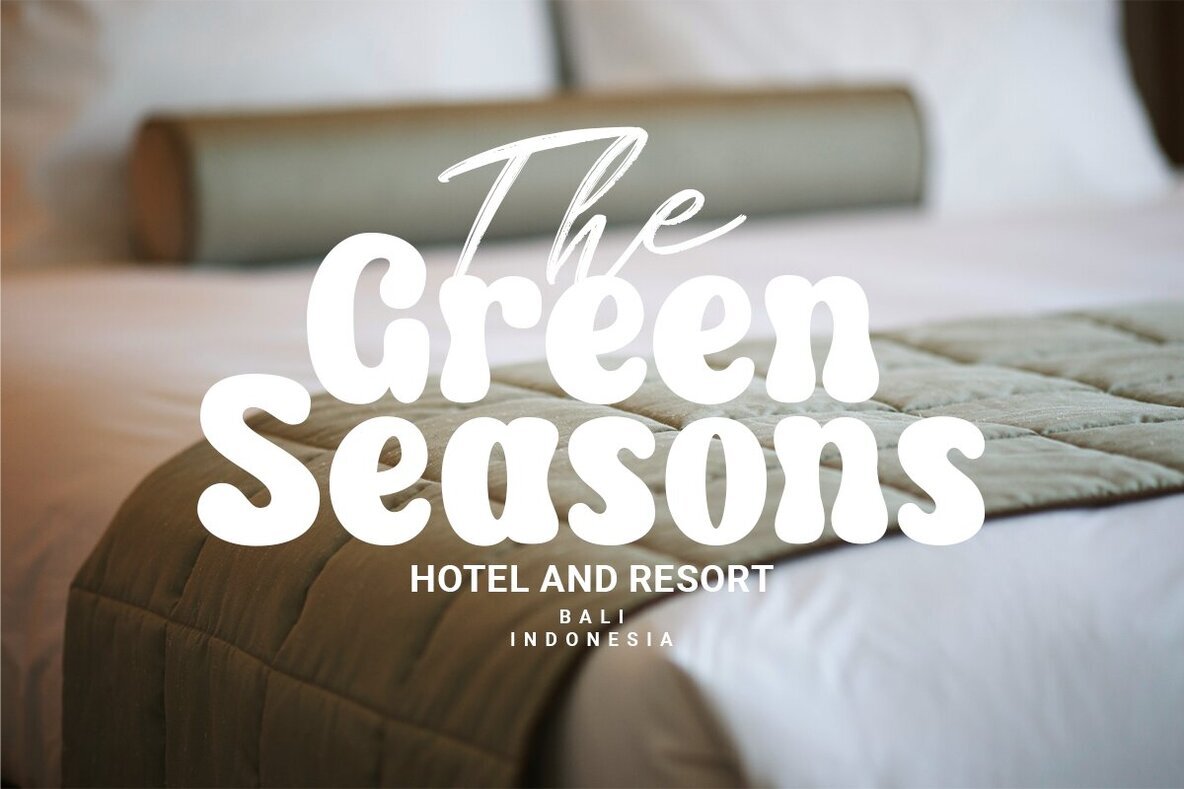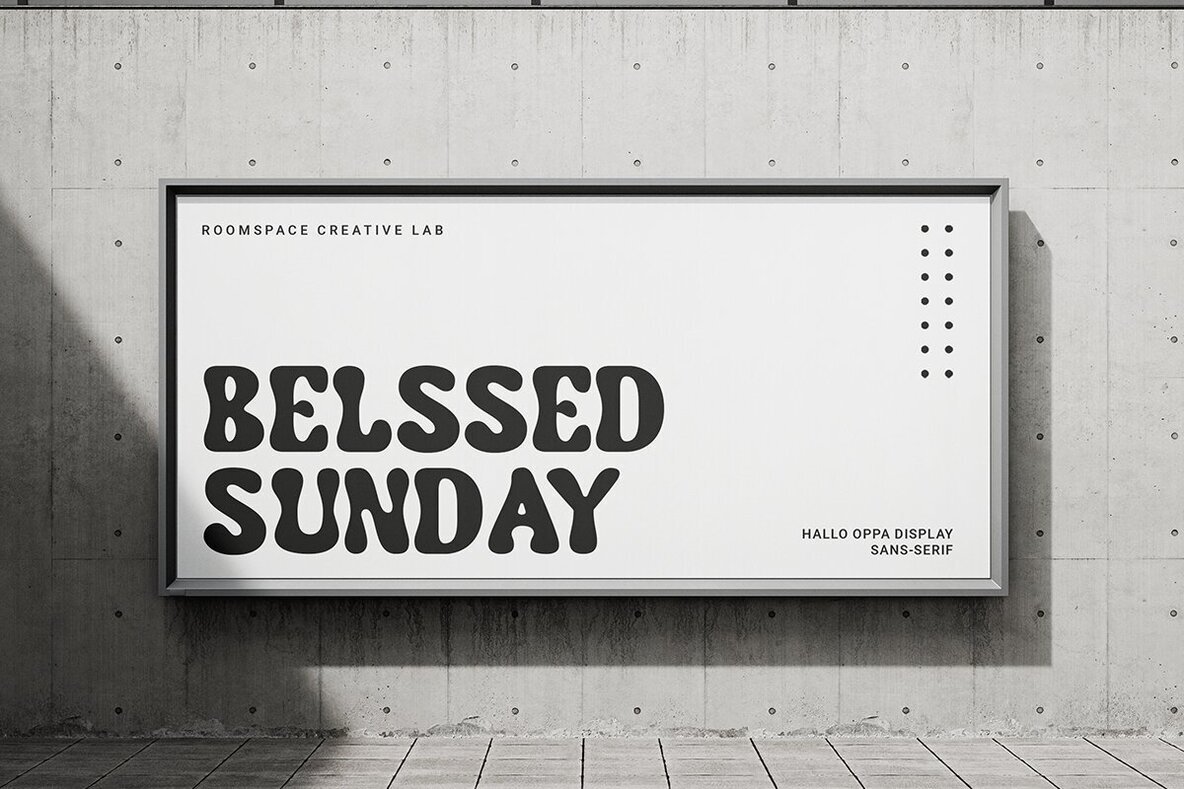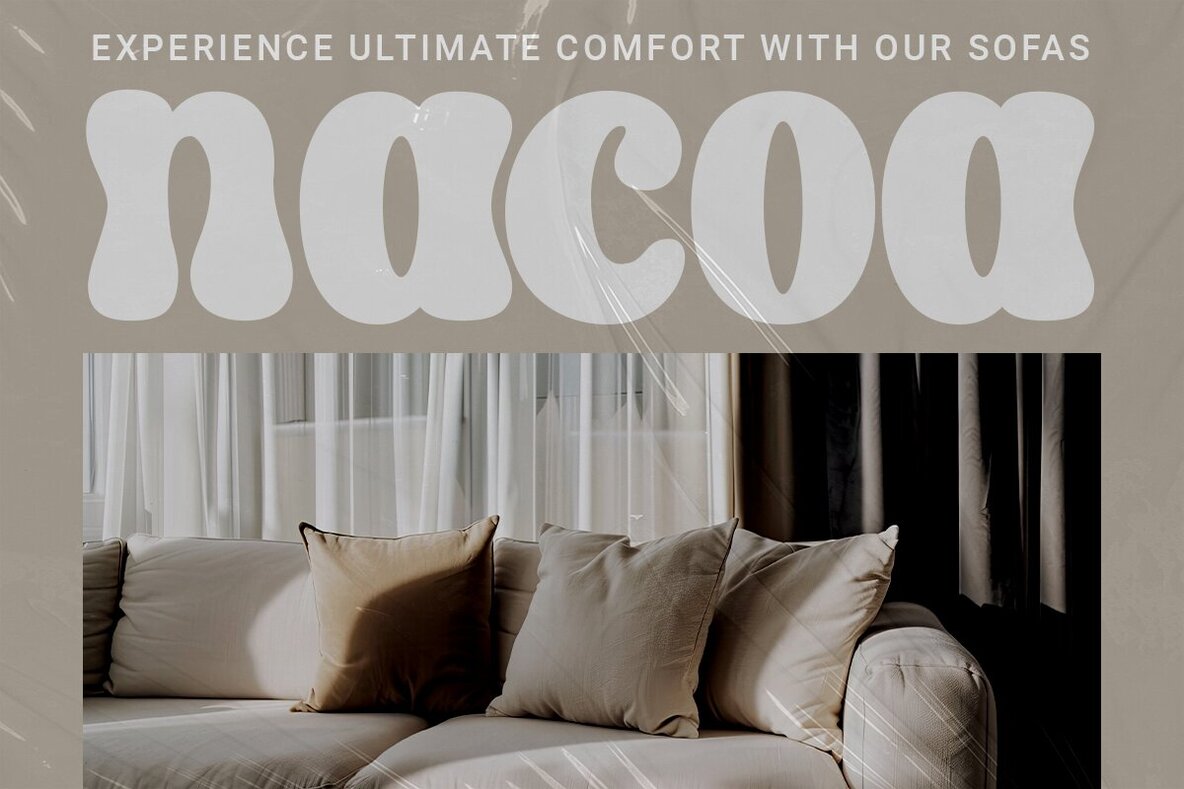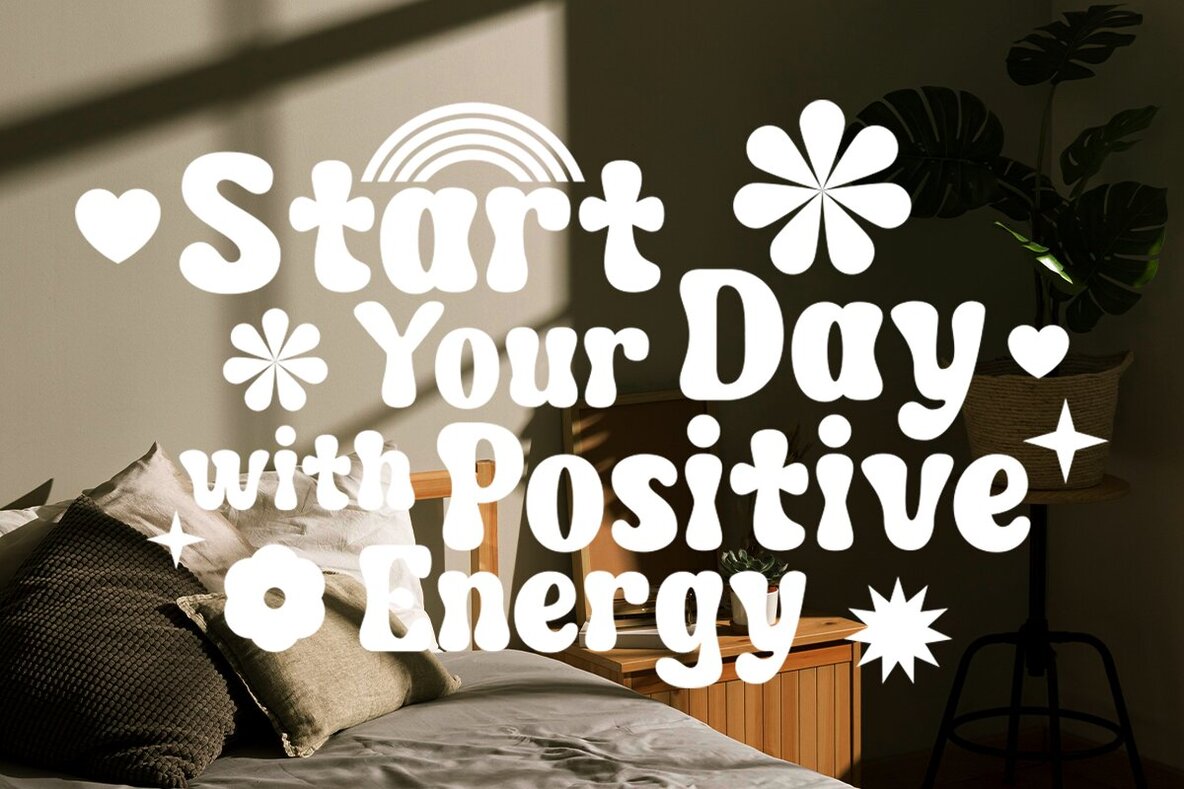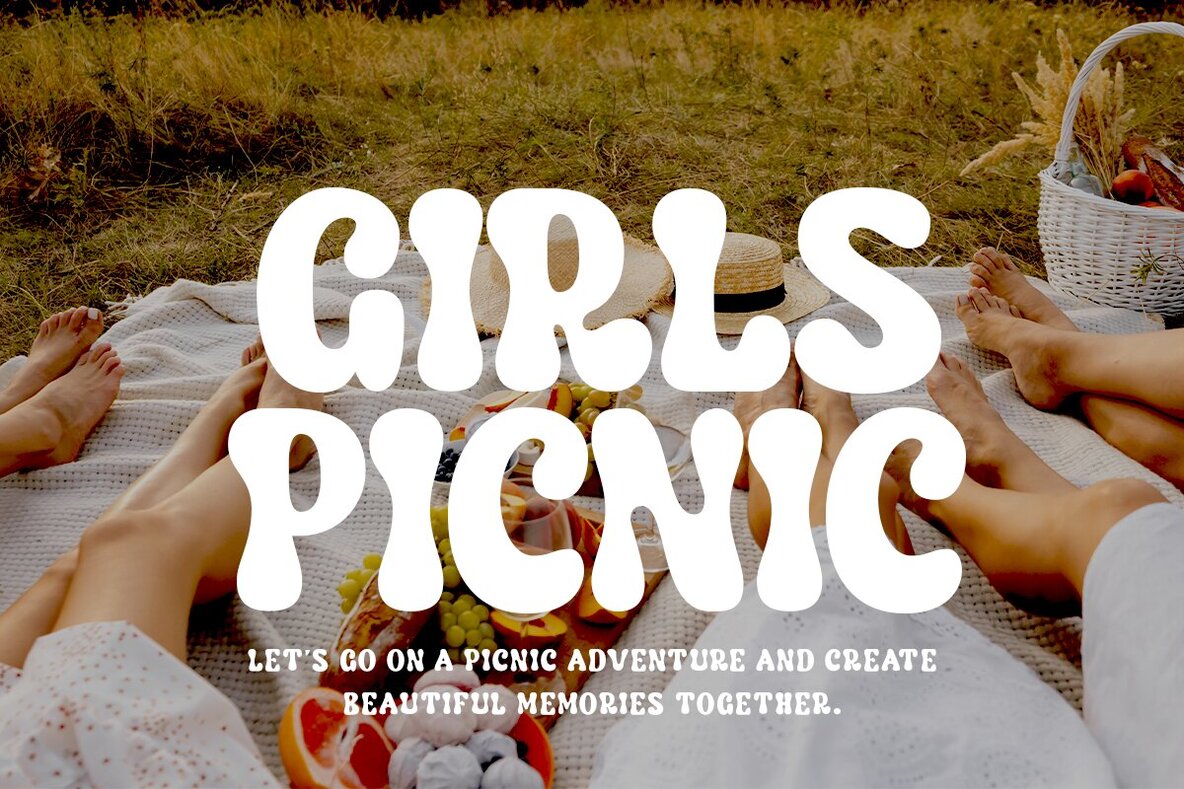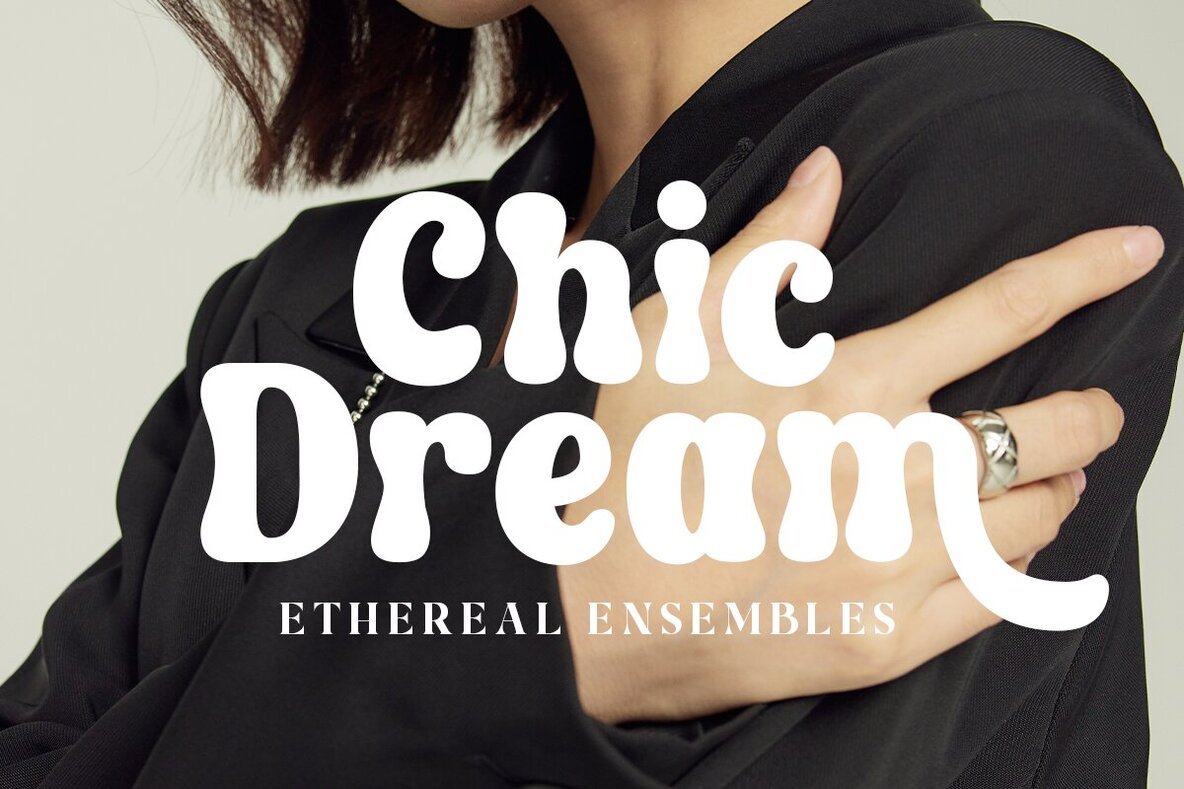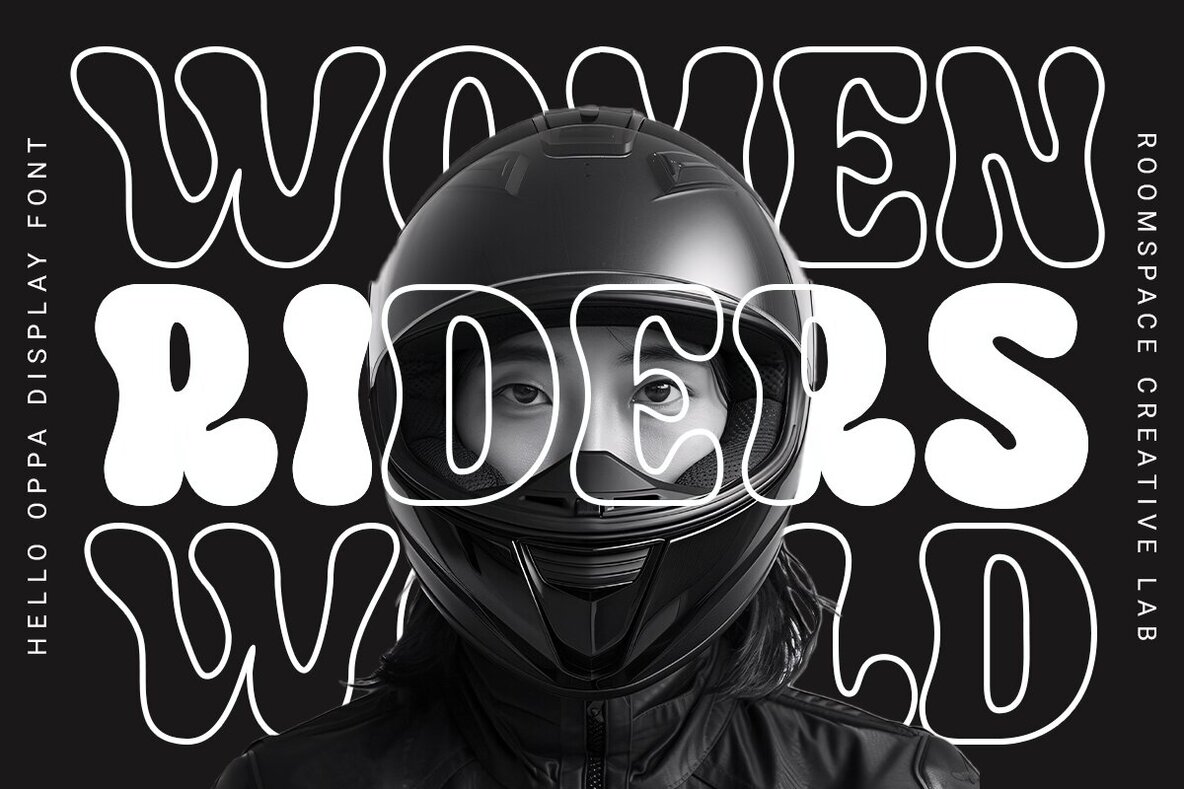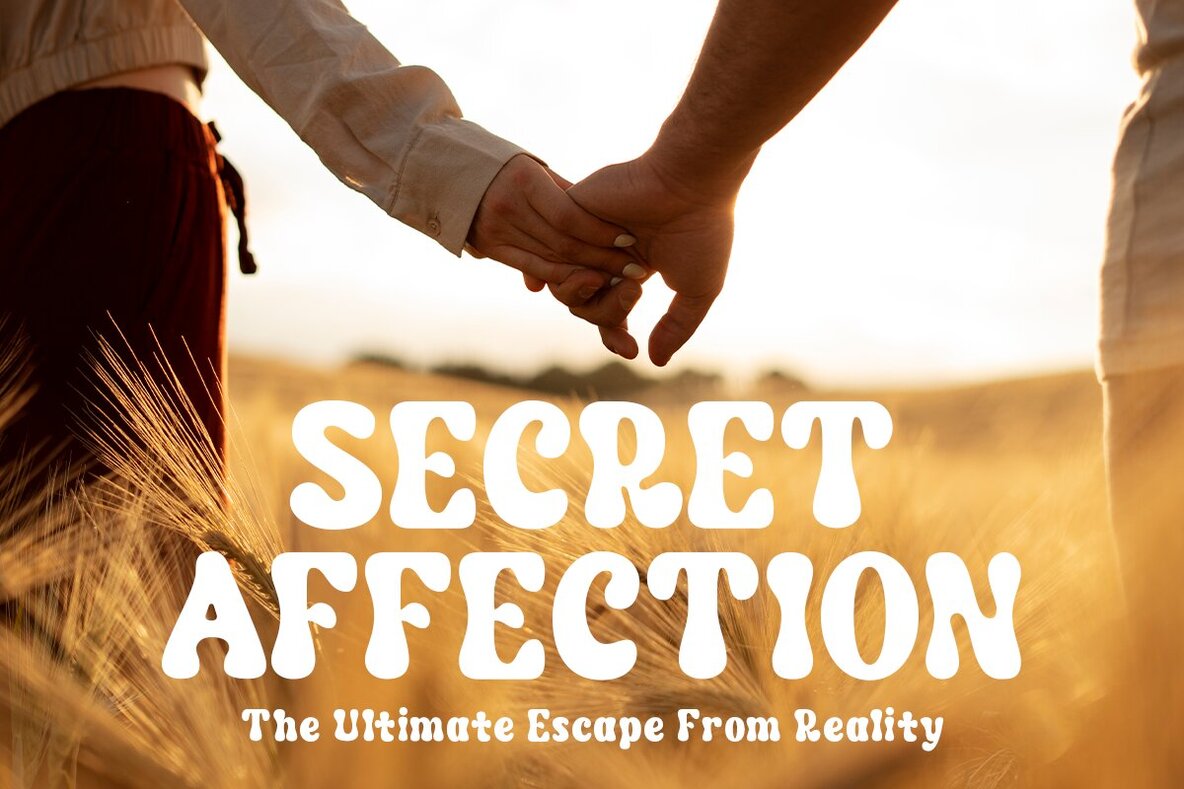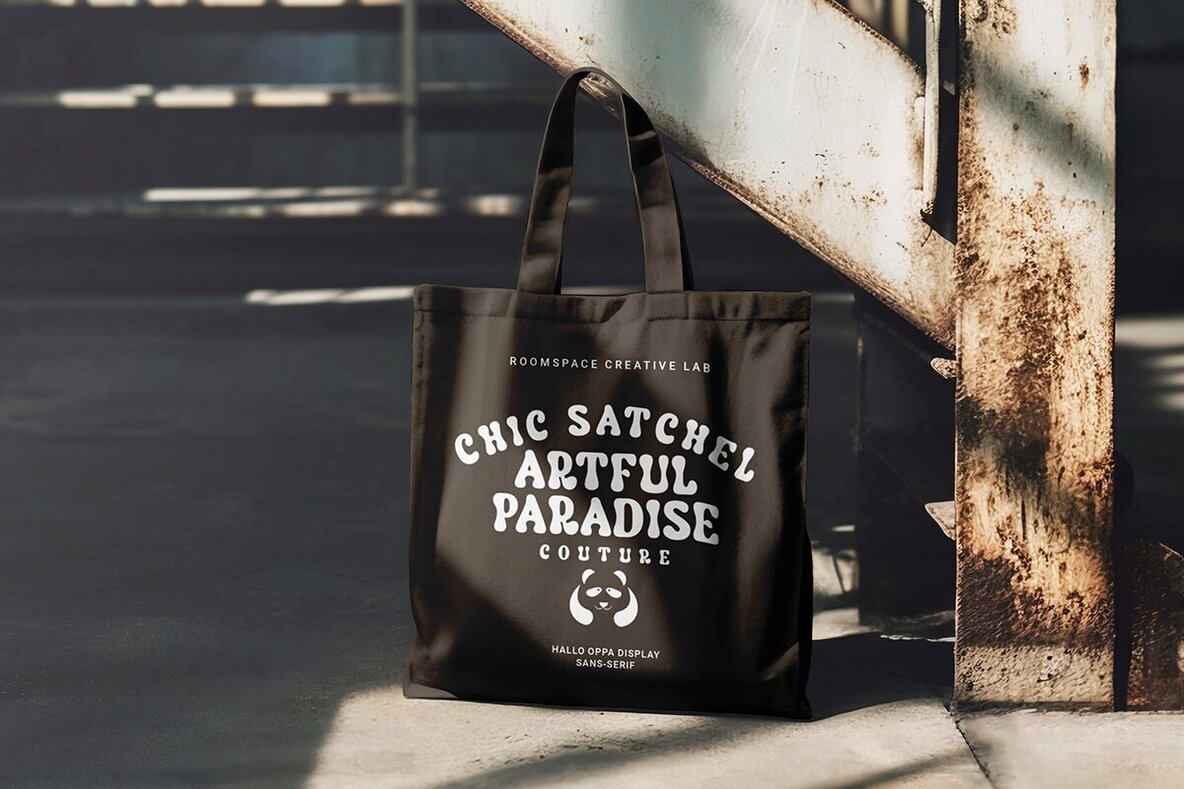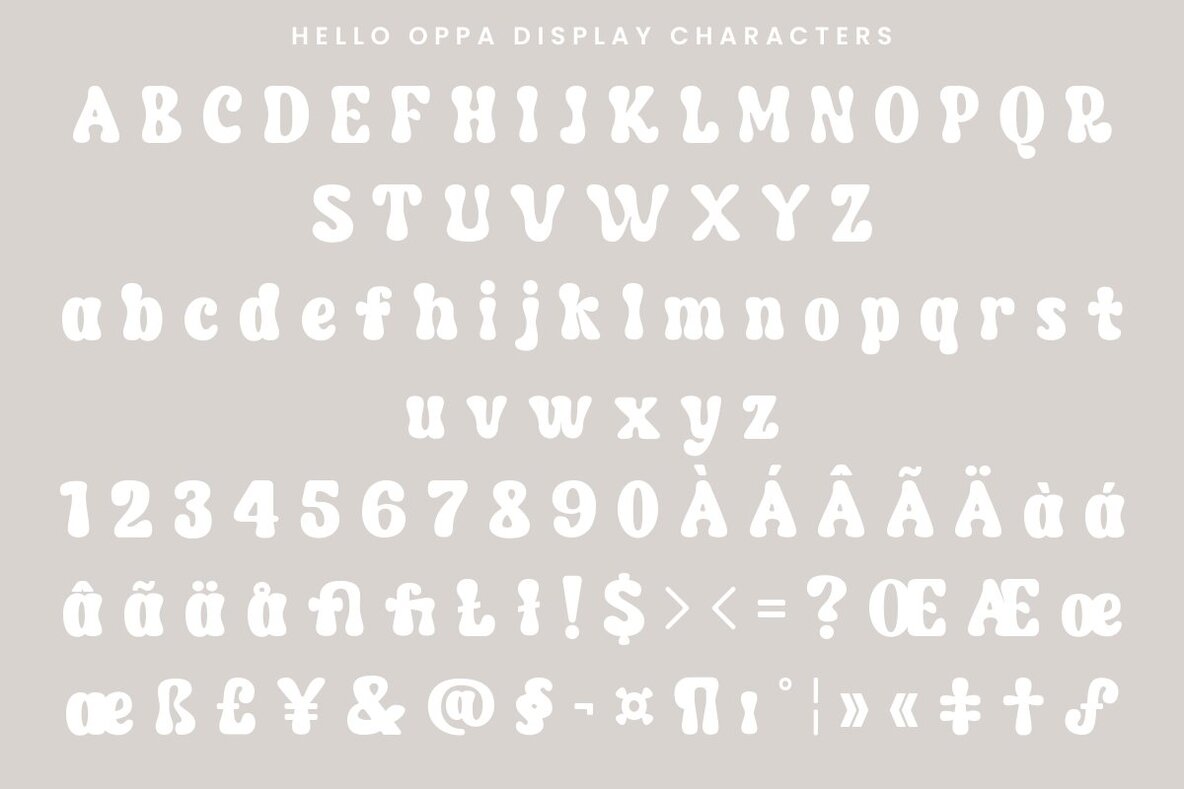
Hello Oppa Font
Hello Oppa
Hello Oppa is a delightful modern retro display font created by the talented designer at Roomspace Creative Lab. With its chunky and playful style, Hello Oppa brings a touch of nostalgia to any project, making it perfect for everything from vintage-themed posters to eye-catching social media graphics. Its bold, rounded letters are not only fun but also highly readable, making it versatile for various creative projects. Imagine Hello Oppa on your next greeting card, children’s book, or even as a quirky addition to your branding. This font is all about bringing a smile to your face and a burst of creativity to your work. Embrace the charm of retro vibes with Hello Oppa and watch your designs come to life! What's you get?